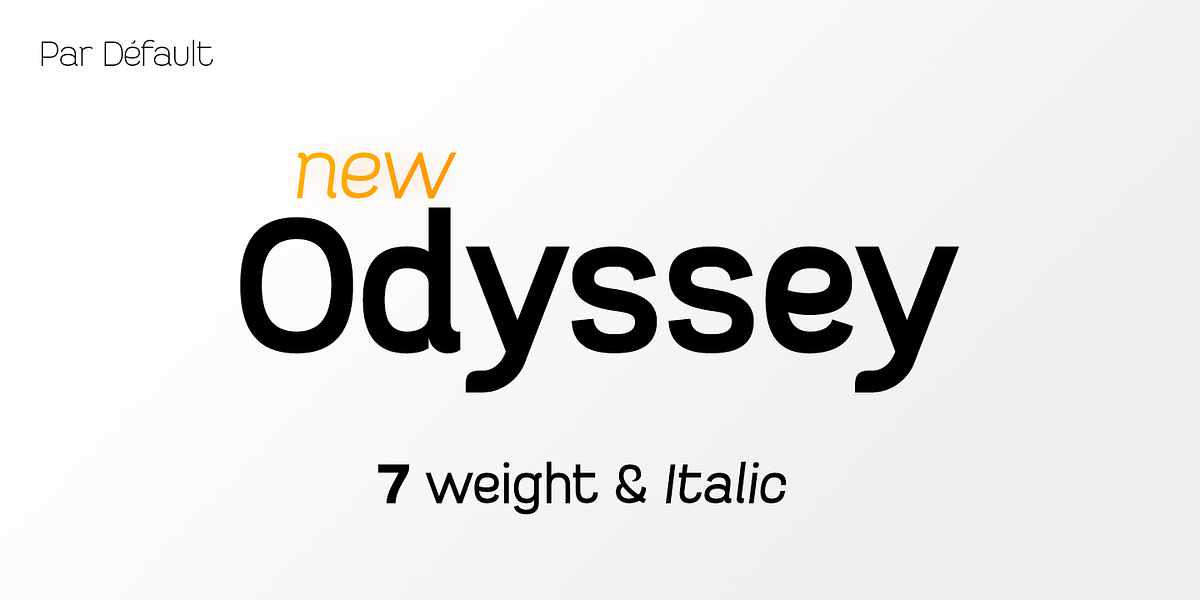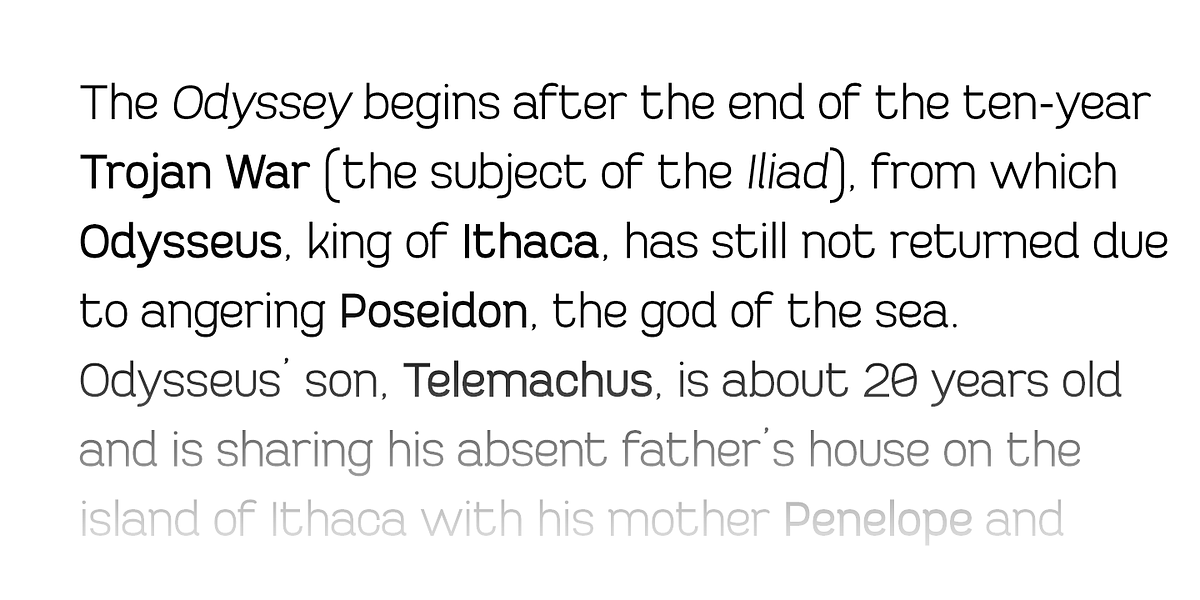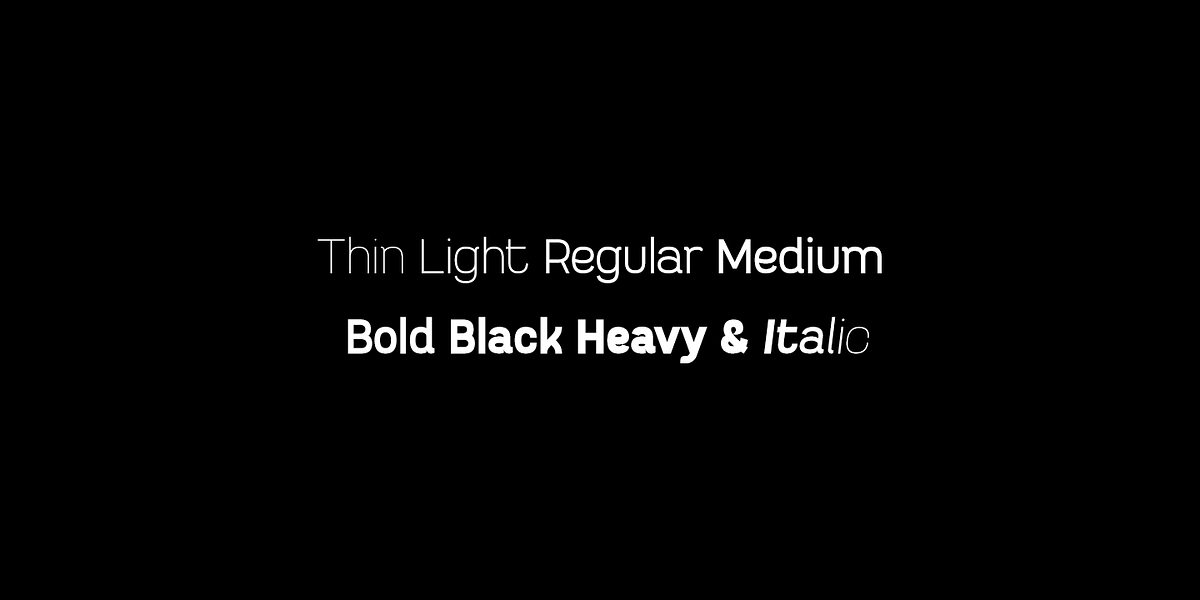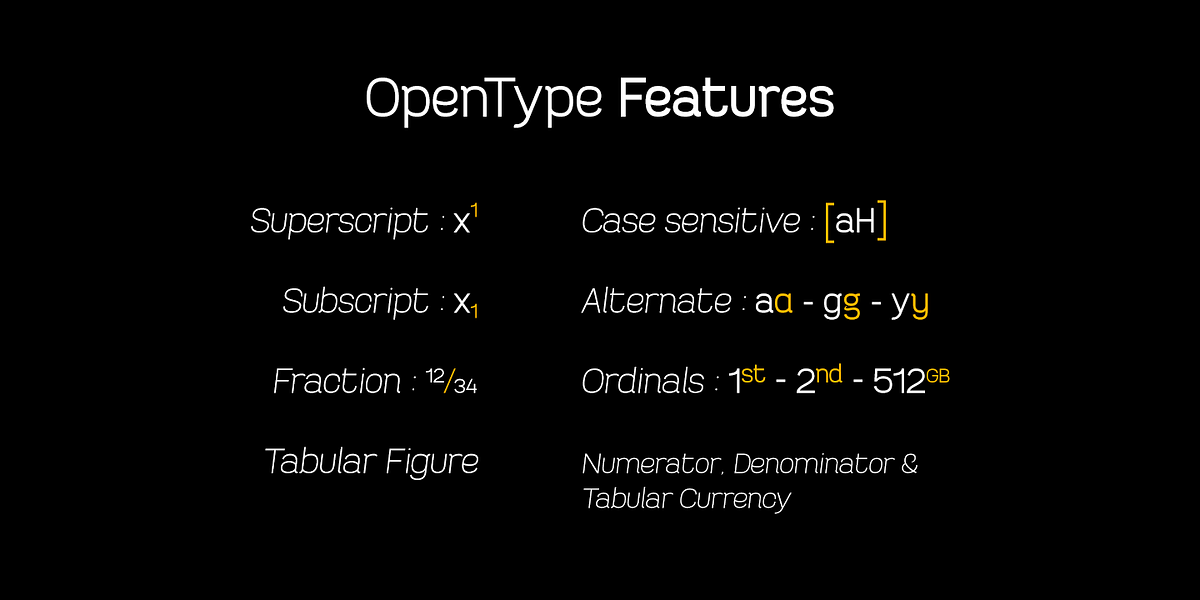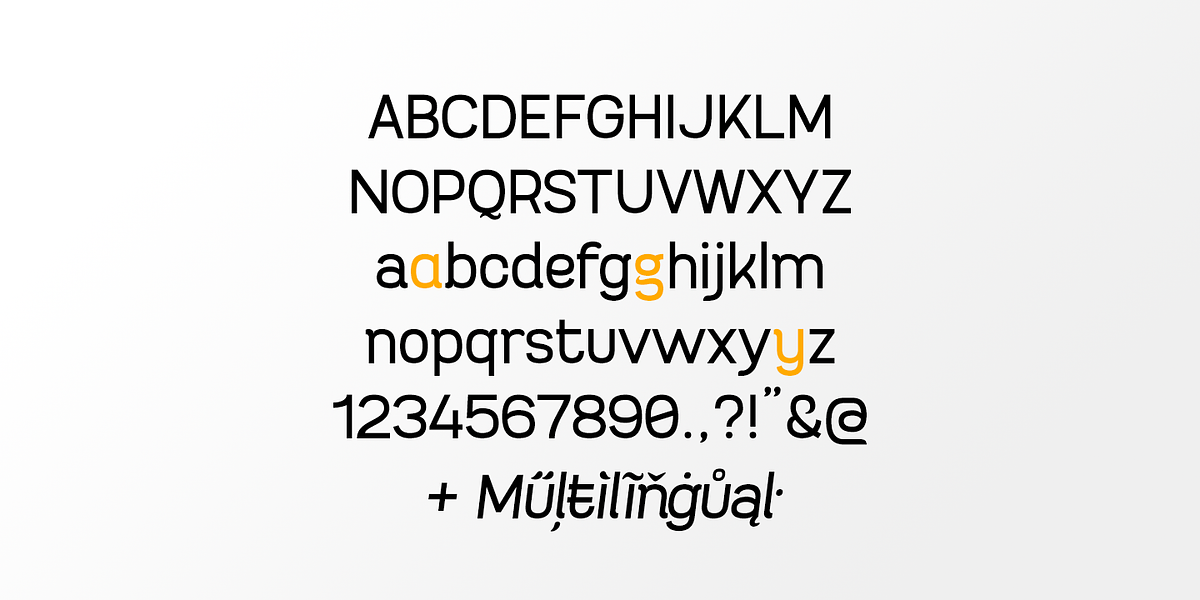
New Odyssey
New Odyssey is a versatile geometric sans-serif font family designed for modern typography. Its clean lines and distinct weight variations make it suitable for both headlines and body text. The inclusion of OpenType features like fractions, superiors, inferiors, and stylistic sets allows for precise typographic control and enhanced readability, particularly in technical or mathematical contexts.